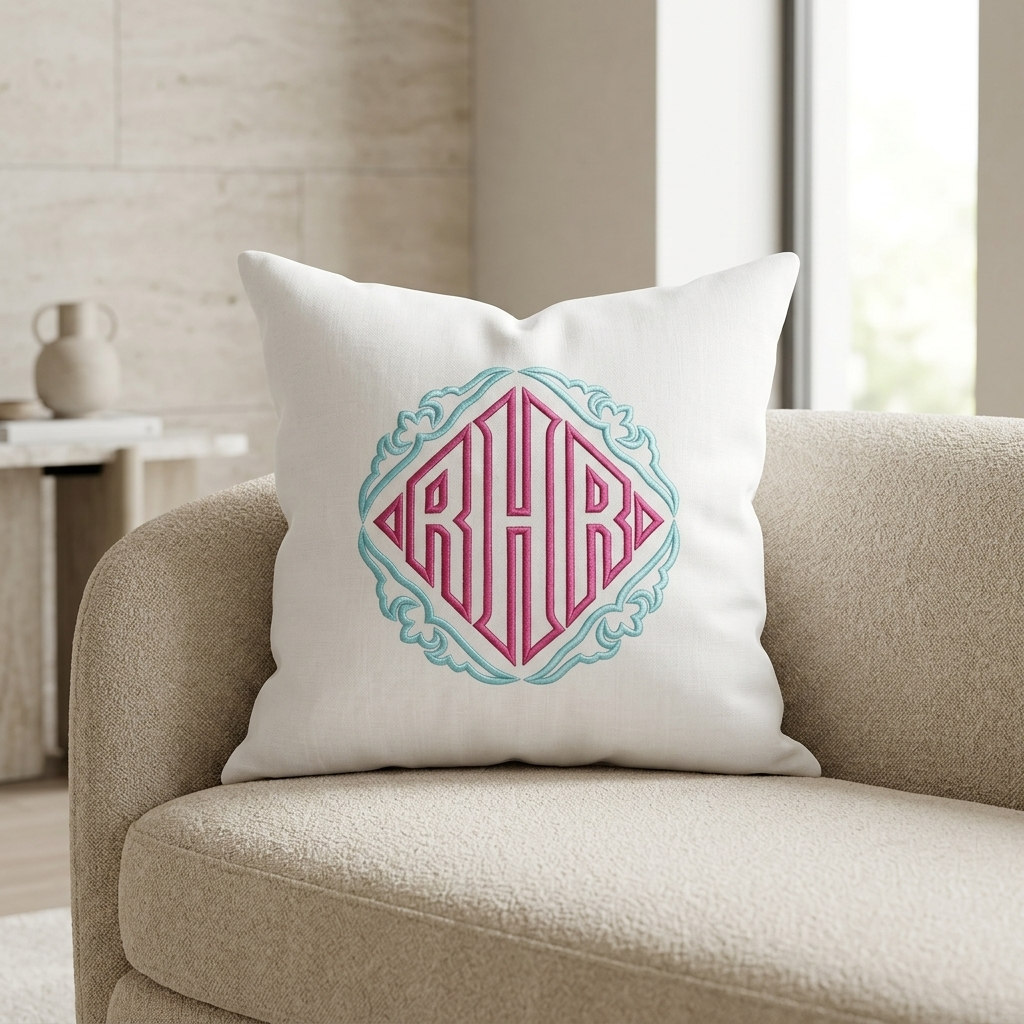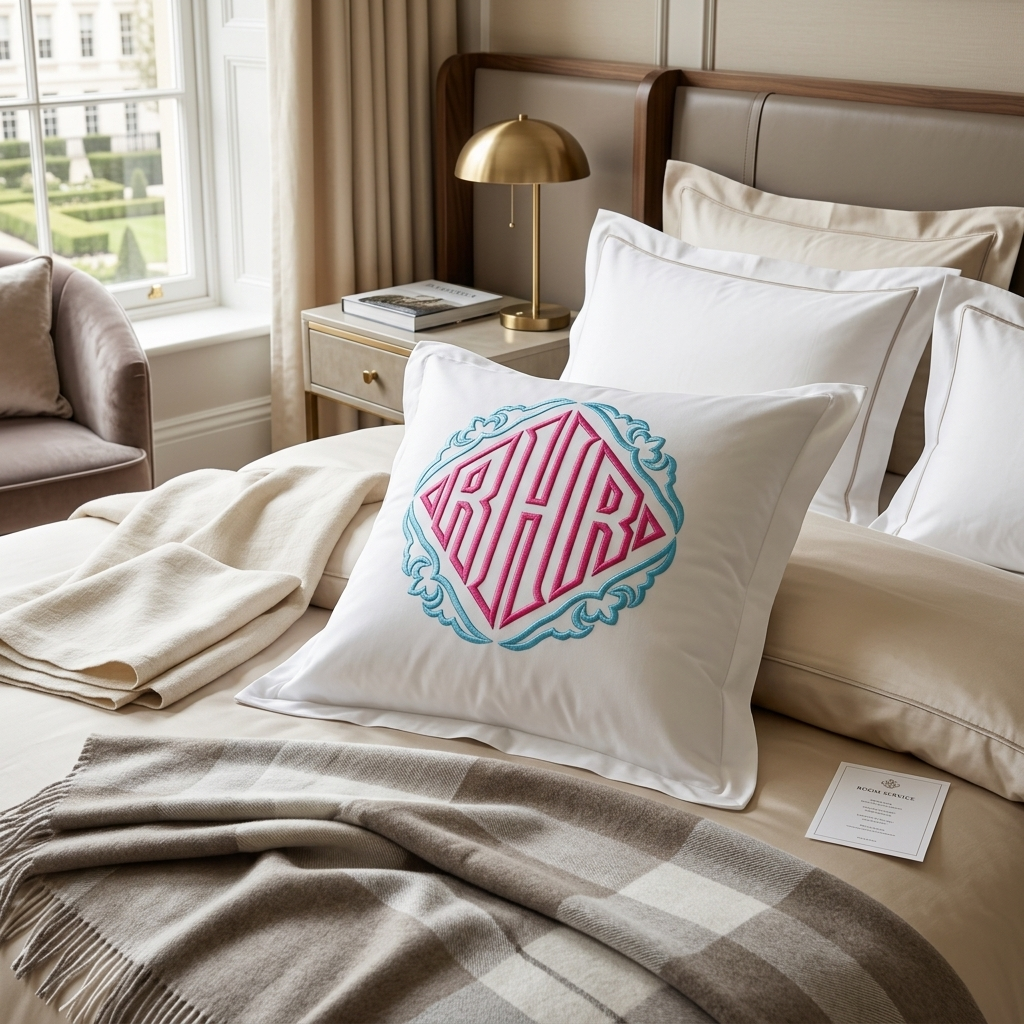
Beautiful Modern personalized gifts and home décor with this elegant Pillow Diamond Monogram Applique Embroidery Font Bundle. Featuring a classic square triangle frame with a stylish chic applique design, this fancy machine embroidery monogram set is perfect for customizing pillows, linens, towels, baby gifts, tote bags, and more.
This premium embroidery font collection includes 4 complete size sets with uppercase monogram letters designed for creating stunning 3-letter monograms. Each font comes professionally digitized for smooth stitching and excellent embroidery results.
- Pillow Diamond Applique Square Triangle Monogram Font
- Perfect for 3-Letter Monograms
- Fancy Monogrammed Linens
- Custom Home Décor Projects